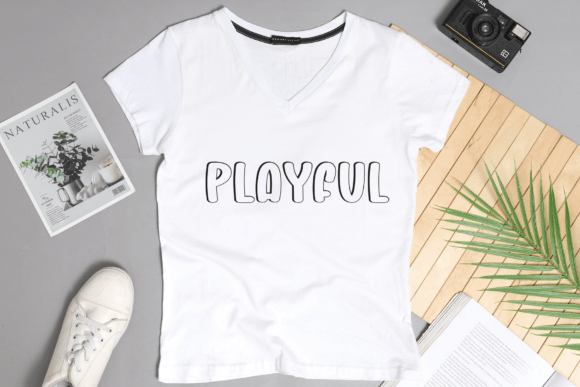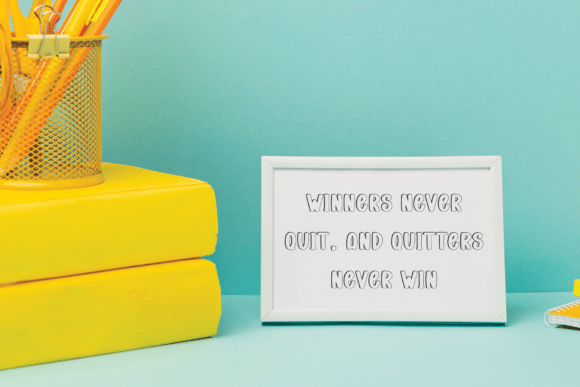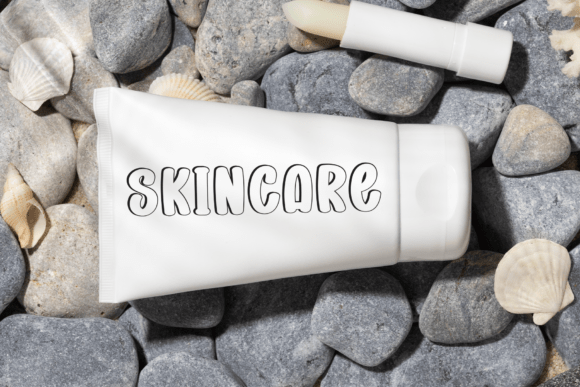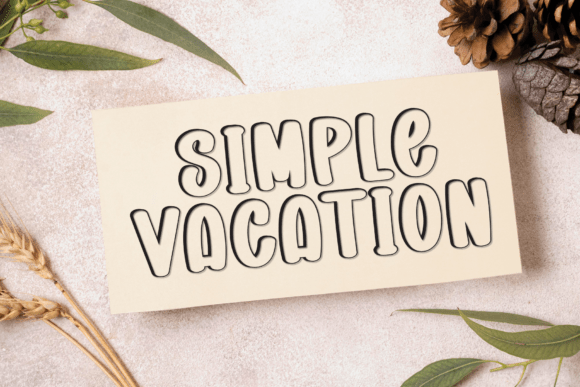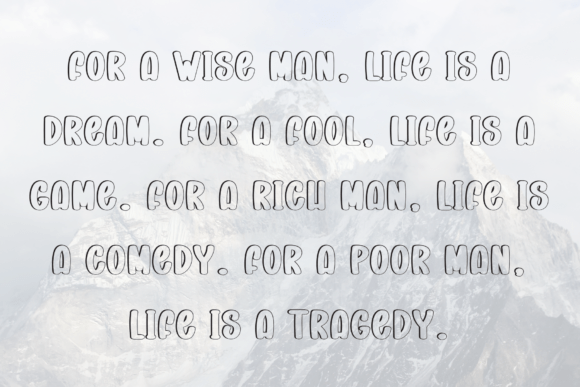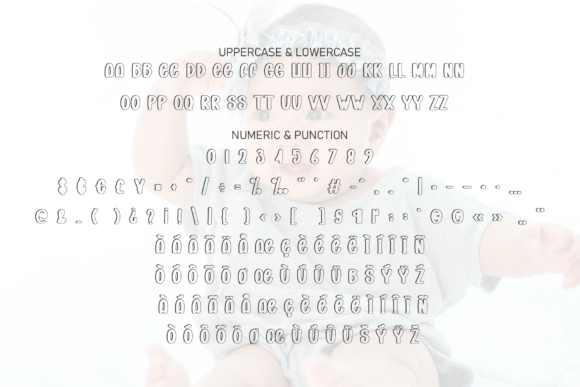
Baby Cute Font: The Perfect Blend of Simplicity and Friendliness
In the world of typography, fonts play a crucial role in conveying the tone and personality of a brand or design. For designers and crafters, finding the right font that captures the essence of their project can be a daunting task. However, if you’re looking for a font that combines simplicity with a friendly and approachable vibe, look no further than the Baby Cute Font.
What is Baby Cute Font?
Baby Cute Font is a casual and neat display font that has been designed to bring a warm and inviting touch to any design. With its clean lines, balanced letterforms, and subtle rounded edges, it embodies the spirit of modern handwritten typography with a polished finish. This font is perfect for designers and crafters who want to add a personal touch to their projects without compromising on clarity and readability.
Key Features of Baby Cute Font
- Clean Lines: The Baby Cute Font features clean lines that give it a crisp and modern look. This makes it perfect for designs that require a high level of professionalism and sophistication.
- Balanced Letterforms: The font’s letterforms are carefully balanced to ensure that each character is easy to read and recognize. This balance also contributes to the font’s overall aesthetic appeal.
- Subtle Rounded Edges: The subtle rounded edges of the Baby Cute Font give it a friendly and approachable feel. This feature makes it ideal for designs that require a more personal and inviting touch.
- Versatile Style: The Baby Cute Font is incredibly versatile and can be used for a wide range of design projects, from branding and headlines to packaging and digital content.
Use Cases for Baby Cute Font
The Baby Cute Font is suitable for a variety of design projects, including:
- Branding: Use the Baby Cute Font to create a strong brand identity that reflects your company’s values and personality.
- Headlines: The font’s clean lines and balanced letterforms make it perfect for headlines that require a high level of readability and visual appeal.
- Packaging: Add a personal touch to your product packaging with the Baby Cute Font, which is sure to make your products stand out on store shelves.
- Digital Content: The Baby Cute Font is also suitable for digital content, such as blog posts, social media graphics, and website headers.
Benefits of Using Baby Cute Font
There are several benefits to using the Baby Cute Font in your design projects, including:
- Improved Readability: The font’s clean lines and balanced letterforms ensure that your text is easy to read and understand.
- Enhanced Visual Appeal: The Baby Cute Font’s subtle rounded edges and versatile style make it a great choice for designers who want to add a personal touch to their projects.
- Increased Versatility: The font’s versatility makes it suitable for a wide range of design projects, from branding and headlines to packaging and digital content.
In conclusion, the Baby Cute Font is a fantastic choice for designers and crafters who want to add a warm and inviting touch to their projects. With its clean lines, balanced letterforms, and subtle rounded edges, it captures the essence of modern handwritten typography with a polished finish. Whether you’re working on a branding project, creating headlines, designing packaging, or producing digital content, the Baby Cute Font is sure to deliver clarity and charm in equal measure.